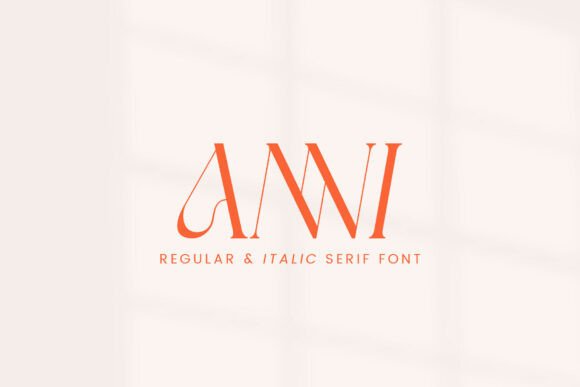
The Ultimate Design Companion: Anni Font
Have you ever been in the middle of a design project, and suddenly, you’re stuck on finding the perfect font? I recall a recent experience where I was working on a branding project for a client, and I just couldn’t seem to find a font that fit their modern and minimalist style. That’s when I discovered the Anni Font – a game-changer for designers, crafters, and creative hobbyists alike!
A Personal Review: What I Love About Anni Font
Here’s what I love about Anni Font:
• ✨ Modern and minimalist style: Anni Font boasts a sleek and contemporary design that instantly elevates any project.
• ✅ Versatility: This font is perfect for various design needs, such as logos, brochures, videos, advertising branding, posters, invitations, and more.
• 💯 Professional and appealing: Anni Font is the perfect choice to make your designs look professional and appealing, setting you apart from the competition.
While Anni Font is an excellent choice, there are a few minor quirks to consider:
• 🤔 Limited character set: Anni Font might not have an extensive character set, which could limit its use in certain projects.
• ⚠️ Not suitable for body text: Due to its modern and minimalist style, Anni Font might not be the best choice for body text, especially in longer documents.
The Designer Inspiration Behind Anni Font
Anni Font was designed with the goal of creating a modern and minimalist font that could be used for a wide range of design projects. The designer aimed to create a font that was both professional and appealing, with a unique character that sets it apart from other fonts.
What is Anni Font? Anni Font is a modern and minimalist serif font designed for various design needs, such as logos, brochures, videos, and more.
Is Anni Font suitable for body text? No, Anni Font is not recommended for body text due to its modern and minimalist style.
Is Anni Font available in multiple weights? Anni Font comes in regular and italic styles, but it may not have multiple weights.